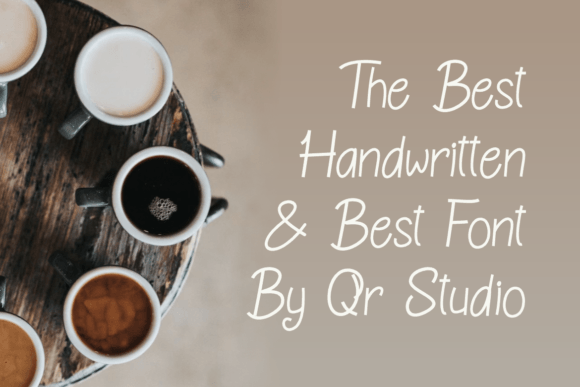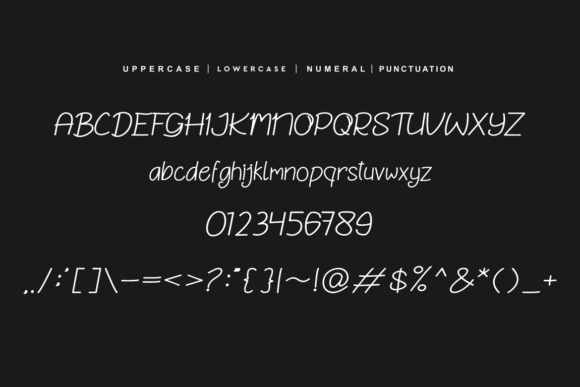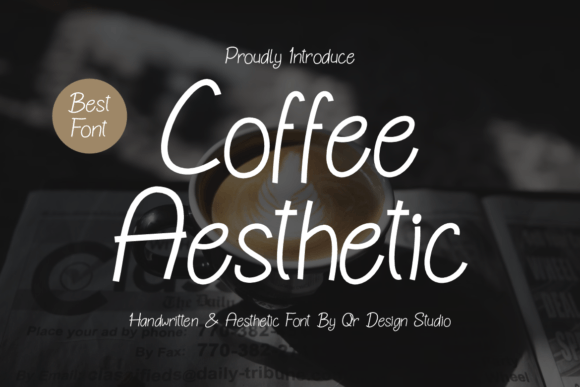
Introduction to Coffee Aesthetic Font
Coffee Aesthetic is a sweet and cursive handwritten font.
This gentle font will look gorgeous on a variety of design ideas It will add a joyful and romantic touch to each of your projects.
Coffee Aesthetic Font offers exceptional quality and versatility, making it a valuable addition to your design toolkit. Whether you’re creating for personal projects or commercial use, Coffee Aesthetic Font delivers professional results.